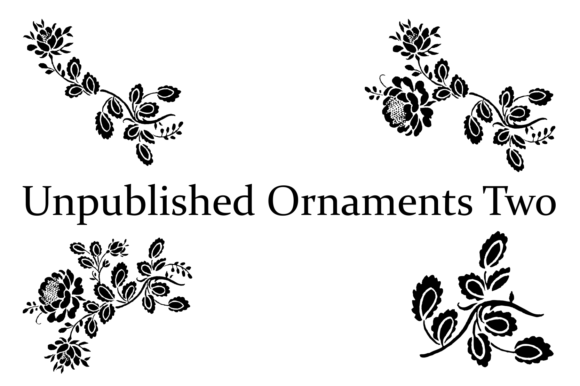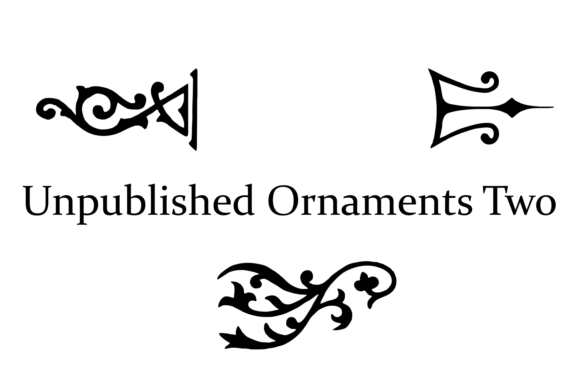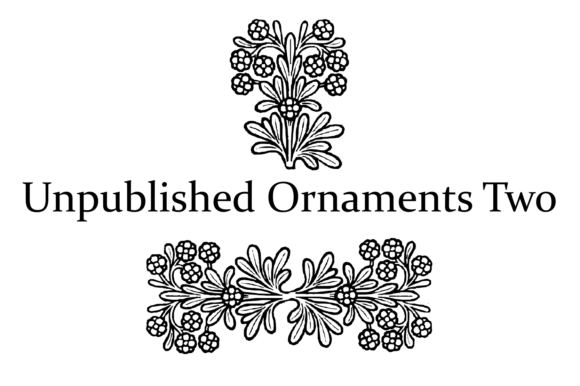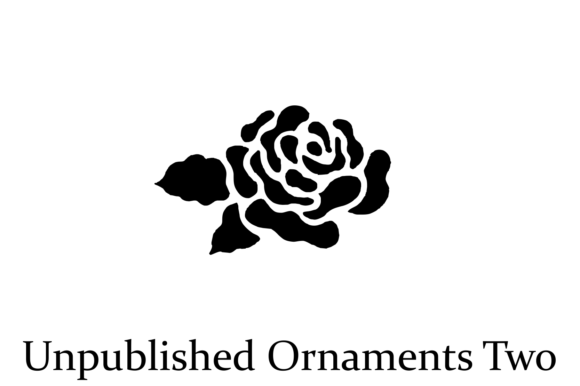
About Unpublished Ornaments Two Font
Unpublished Ornaments Two is a diverse collection of ornaments available in font format, featuring various styles that can enhance your designs. These ornaments are unique and distinct, as they have not been previously published, making them a valuable resource for adding decorative elements to your projects.
With Unpublished Ornaments Two, you have access to a wide range of ornamental designs, each with its own style and intricacy. These ornaments can be used to embellish and enhance various design compositions, such as book covers, invitations, stationery, posters, and more. They provide an opportunity to add a touch of elegance, sophistication, or whimsy to your creative works.
The versatility of Unpublished Ornaments Two allows you to experiment and explore different design possibilities. You can mix and match the ornaments, combine them with typography, or use them to create borders, frames, or flourishes that bring visual interest to your designs. Whether you’re working on a classic, vintage-inspired project or aiming for a more contemporary and artistic approach, these ornaments provide a wide range of options to suit your design needs.
The fact that these ornaments are unpublished adds an element of exclusivity to your designs. By utilizing these unique and unseen decorative elements, you can create truly distinctive and memorable compositions that stand out from the crowd.
In summary, Unpublished Ornaments Two is a diverse collection of ornaments available in font format, offering a wide range of styles to enhance your designs. These unpublished ornaments bring a unique touch to your creative projects, allowing you to experiment and create visually captivating compositions. With their versatility and exclusivity, these ornaments provide endless possibilities for adding decorative elements to your designs.